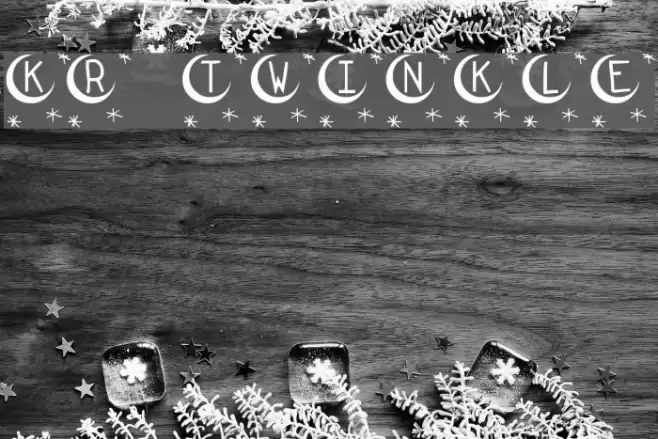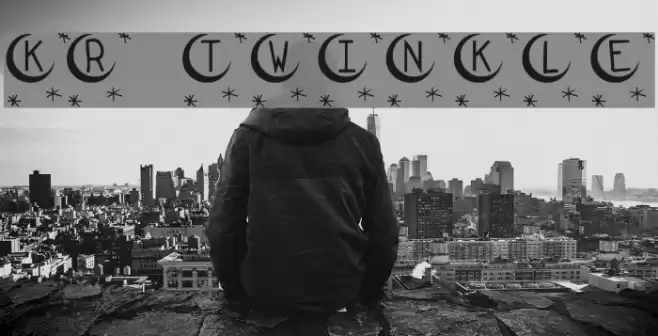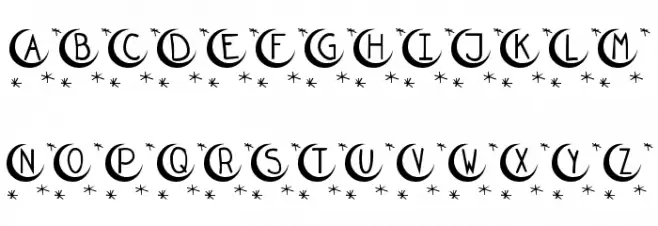
KR Twinkle Font
KR Twinkle Description
This decorative font features a whimsical and playful design, with each character enclosed in a circular shape resembling a crescent moon. The letters are adorned with small star-like accents, adding a celestial theme to the overall appearance. The font style is bold and eye-catching, making it suitable for creative and fun projects. The characters are evenly spaced, ensuring readability while maintaining its unique style. The contrast in stroke thickness is medium, providing a balanced look that is neither too heavy nor too light.
A whimsical, celestial-themed decorative font with star accents from Uncategorized fonts.